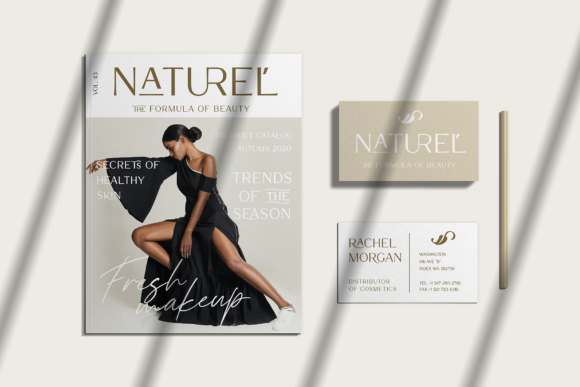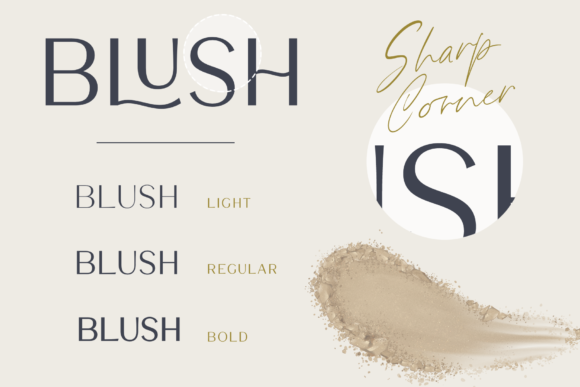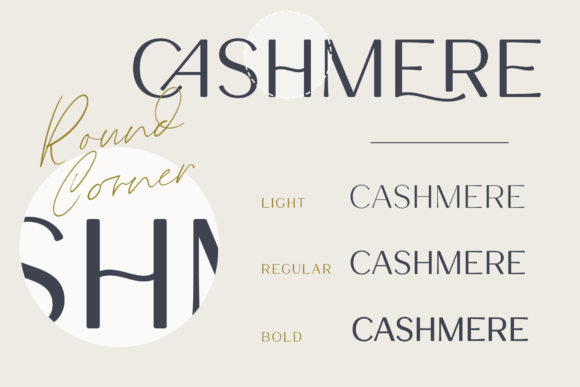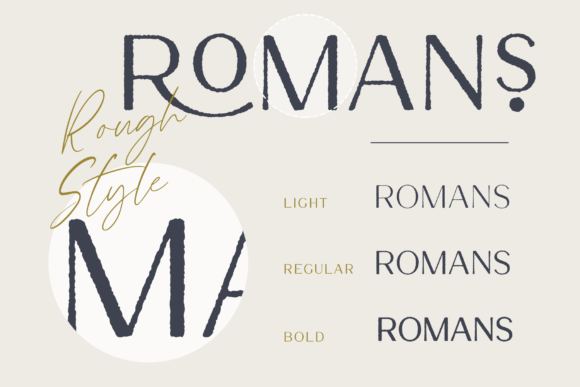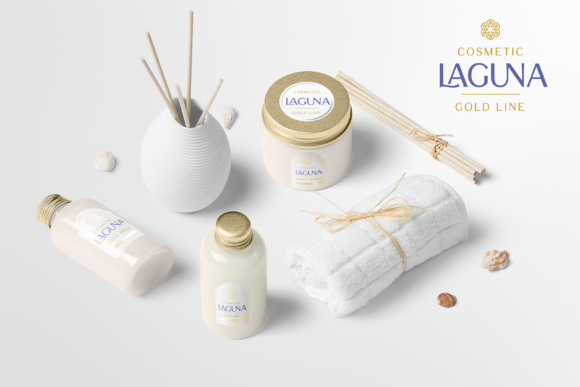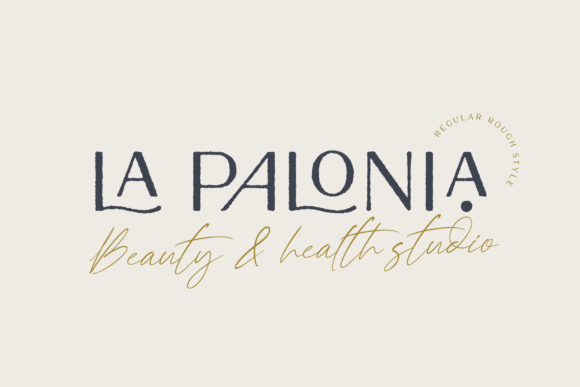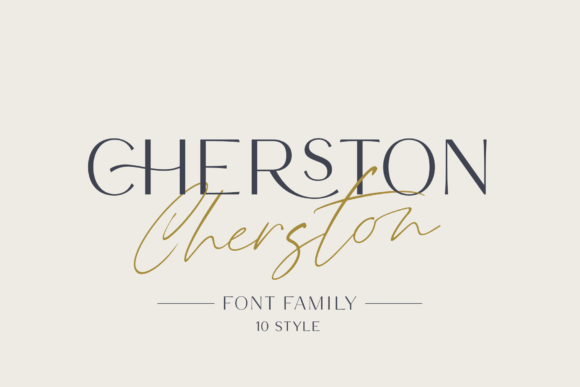
Cherston Font: Elevate Your Designs with this Spectacular Duo
Are you looking for a font that can take your designs to the next level? Look no further than Cherston Font, a spectacular duo font that combines a display font with a script font. This incredibly versatile font is perfect for a wide range of designs, from elegant wedding invitations to bold marketing materials. In this article, we’ll dive into the features and benefits of Cherston Font and explore how it can bring your creative ideas to life.
The Power of a Duo Font
Cherston Font is more than just a single font – it’s a duo font that pairs a stunning display font with a beautiful script font. This combination allows you to add depth and interest to your designs, creating a visual hierarchy that’s sure to capture attention. The display font is perfect for headlines, titles, and other prominent text elements, while the script font adds a touch of elegance and sophistication to your design.
One of the standout features of Cherston Font is its incredible versatility. This font can be used for a wide range of designs, from:
- Elegant wedding invitations and stationery
- Bold marketing materials and advertisements
- Creative packaging and branding
- Stunning website headers and titles
- Beautiful social media graphics and posts
Whether you’re a designer, crafty DIY enthusiast, or simply someone who loves to create, Cherston Font is the perfect addition to your toolkit.
Bringing Your Ideas to Life
So, how can Cherston Font bring your creative ideas to life? Here are just a few examples:
- Add a touch of elegance: Cherston Font’s script font adds a touch of sophistication and elegance to any design, making it perfect for wedding invitations, luxury brands, and high-end marketing materials.
- Create a bold statement: The display font in Cherston Font is perfect for making a bold statement, whether you’re creating a eye-catching headline or a striking title.
- Elevate your branding: Cherston Font can help take your branding to the next level, adding a level of professionalism and sophistication that will set you apart from the competition.
- Unique and eye-catching: Cherston Font is a unique and eye-catching font that will help your designs stand out from the crowd.
- Incredibly versatile: This font can be used for a wide range of designs, making it a great addition to your toolkit.
- Elegant and sophisticated: Cherston Font’s script font adds a touch of elegance and sophistication to any design, making it perfect for high-end branding and marketing materials.
In conclusion, Cherston Font is a spectacular duo font that’s perfect for designers, crafty DIY enthusiasts, and anyone who loves to create. With its incredible versatility, elegant script font, and bold display font, Cherston Font is sure to elevate your designs to the highest levels. So why wait? Add Cherston Font to your favorite creative ideas and watch as they come alive!